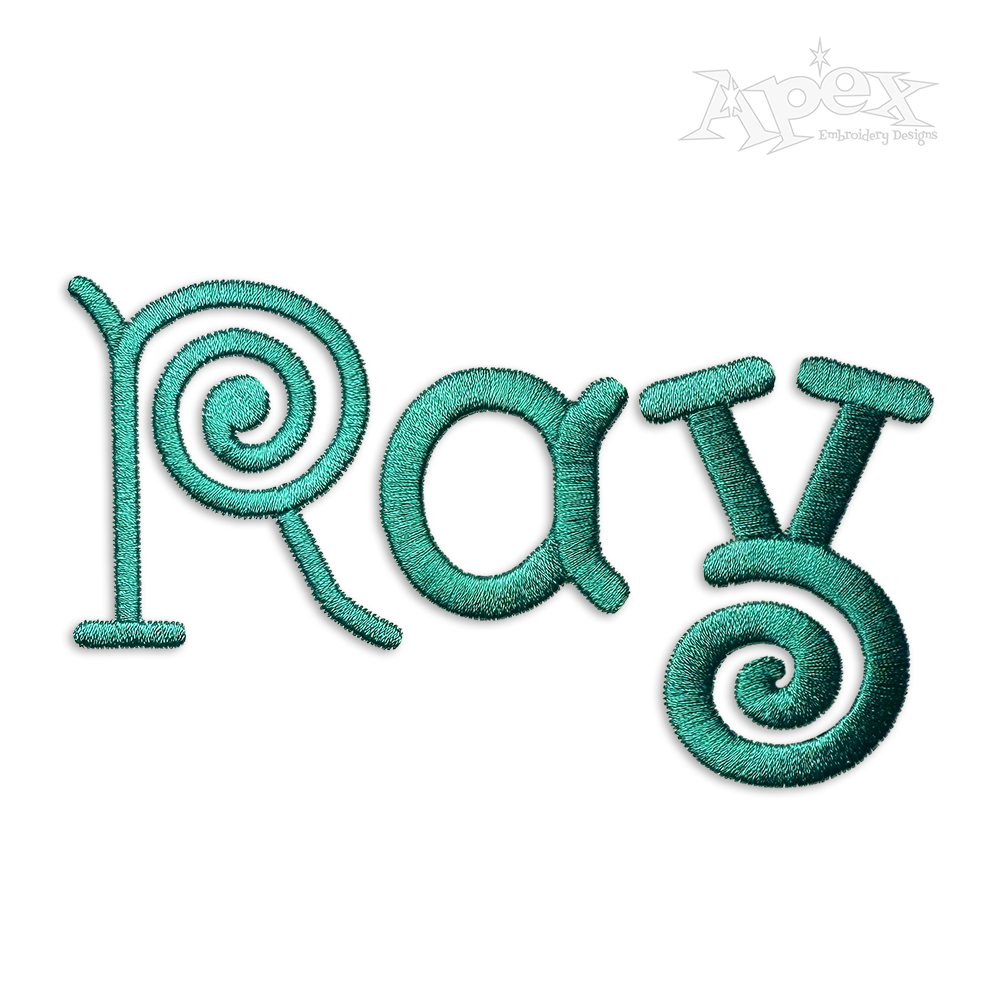
Spiral Embroidery Font
There is an irresistible cadence in circular forms—a joyful sense of continuous movement, balance, and modern grace. When designing the Spiral Embroidery Font in our Apex studio, we sought to capture that buoyant energy through sculptural, sweeping contours that transform typography into an expressive visual motif. Each character bends playfully into a fluid curve, lending a fresh, contemporary spirit to monogramming and custom names. On fabric, the dimensional satin stitch columns catch and bend ambient light along every arc, introducing bespoke personality and polished craftsmanship to everything from casual resort accessories to timeless home textiles.
Project Ideas for Spiral Embroidery Font
The organic, circular character of the Spiral alphabet lends itself beautifully to modern personalized gifting and relaxed luxury aesthetics:
- Luxury Table Linens: Stitch playful, modern dinner napkins or runner corner accents for dinner parties and coastal dining settings.
- Bespoke Resort Wear: Monogram linen button-down coverups, terrycloth beach totes, and wide-brim sun hats with spirited single initials.
- Bridal Party Gifting: Personalize silk cosmetic cases, waffle-knit lounge robes, and weekend duffle bags with bride and bridesmaid monograms.
- Heirloom Nursery Pieces: Create soft, contemporary baby blankets, custom nursery wall hangings, and keepsake milestone apparel.
- Personalized Bedding: Elevate percale pillow shams and duvet covers with clean, modern initials centered as a focal crest.
Because the letterforms feature dynamic, sweeping paths, intentional placement enhances their circular harmony on the finished textile:
- Corner Diagonal: Position a single initial 1.5 to 2 inches from the hemmed point of cocktail napkins and table linens for an effortlessly chic point of interest.
- Center Chest & Pocket Tops: For polos, casual linen shirts, or robes, place names or single initials centered 7 to 9 inches down from the shoulder seam, or slightly elevated above a pocket welt.
- Border Accents: Combine digits and characters along a towel hem or pillow border, allowing the rounded baselines to soften straight textile edges.
- Circular Crest Stacking: Stack lowercase names beneath an enlarged 3-inch uppercase letter to create an organic, self-contained monogram emblem.
Spiral Embroidery Font Craft & Letterform Details
Digitizing a font with pronounced curves requires meticulous attention to stitch direction and thread compensation. As paths turn tightly into spirals, stitches naturally risk bunching on the interior while spreading thinly across the outer edge. To counter this, our digitizers utilized custom radial satin pathing with subtle density gradations, preserving a smooth, pillowy surface that never puckers your fabric.
Every terminal stroke tapers into a softened round end, while the fluid connecting arcs boast calculated pull-compensation to ensure perfectly round silhouettes after the needle meets the cloth. The result is a clean, seamless stitch-out with minimized jump travel, allowing the thread’s natural sheen to trace the graceful curves of every uppercase flourish, lowercase loop, and sculpted numeral with effortless clarity.